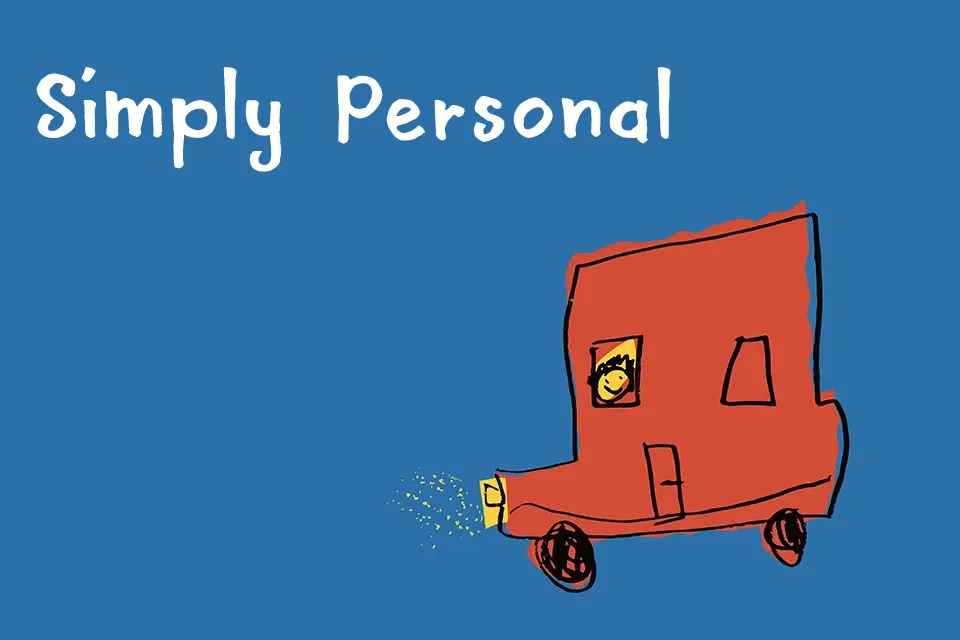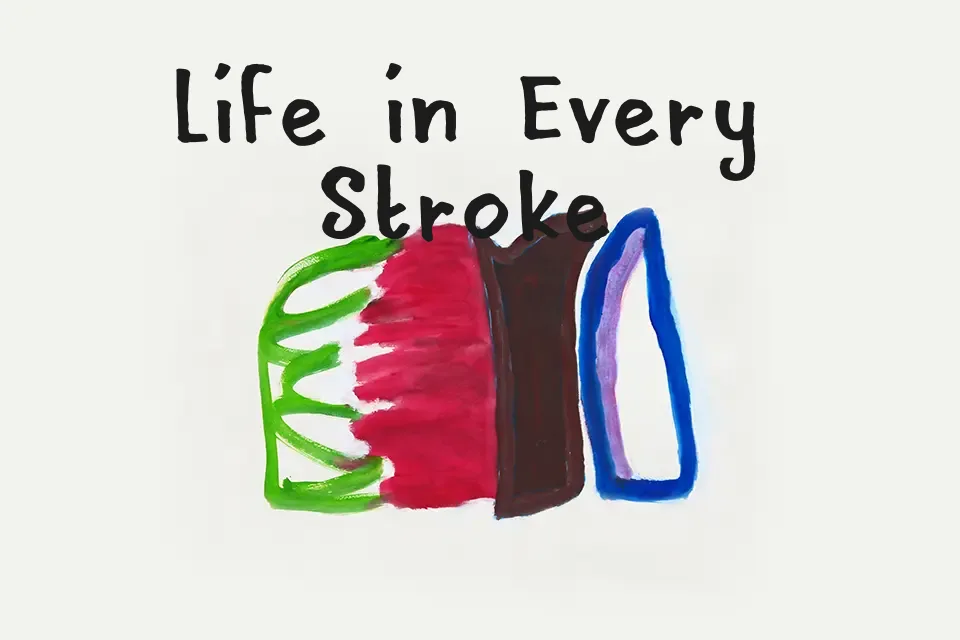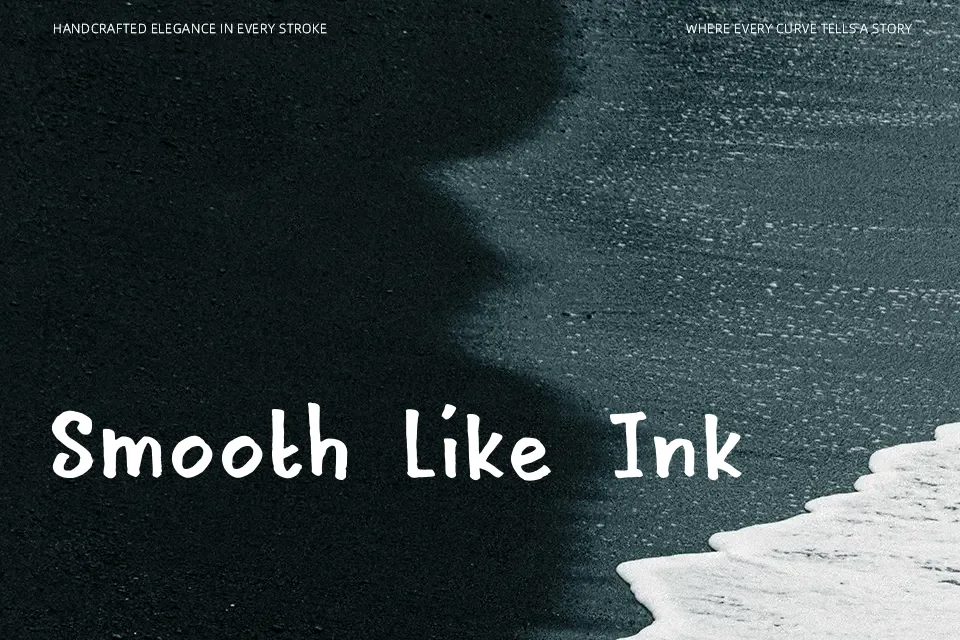
DK Mama Bear Font
Designed by David Kerkhoff
DK Mama Bear Font has a hand-drawn comic feel with rounded strokes, slightly irregular letter shapes, and roomy spacing that keeps it open and easy to read at display sizes. It feels casual, friendly, and a little clumsy in a charming way, which helps it land well on kids’ party invitations, storybook covers, classroom labels, and nursery-themed packaging. The letters have enough texture to feel personal without becoming messy. It works best when the design wants warmth and a homemade touch. For polished branding, dense editorial settings, or small UI text, it starts to look too informal and uneven.
children’s book covers
classroom posters
baby shower invitations
nursery packaging
formal branding
small interface text
Perfect for invitation, kids, and packaging, with a cute and comic style.